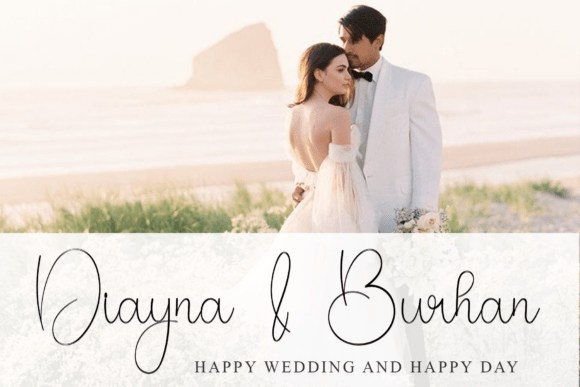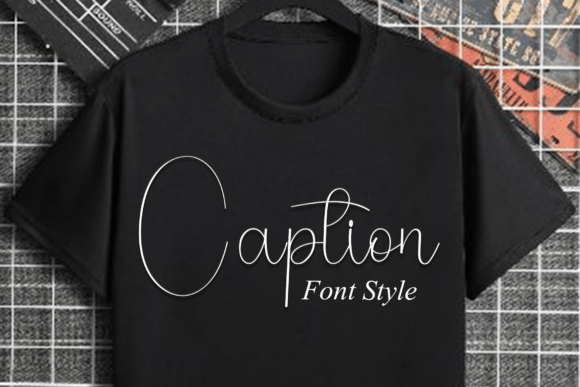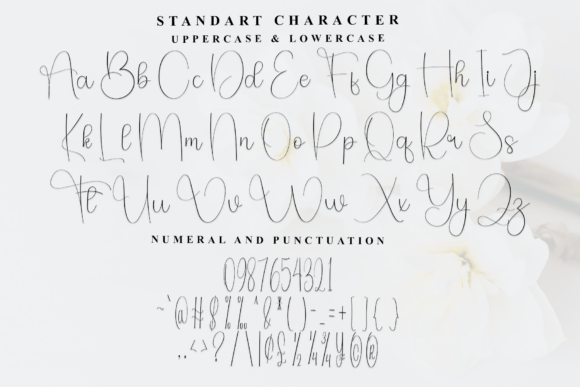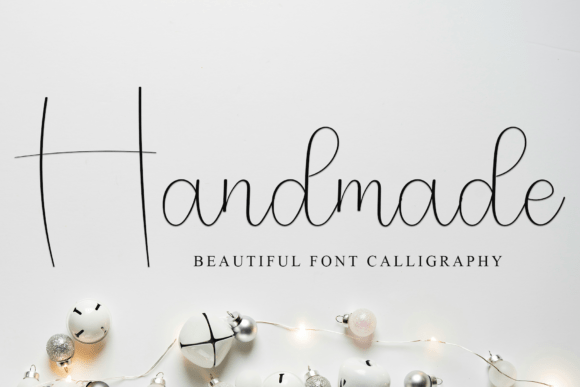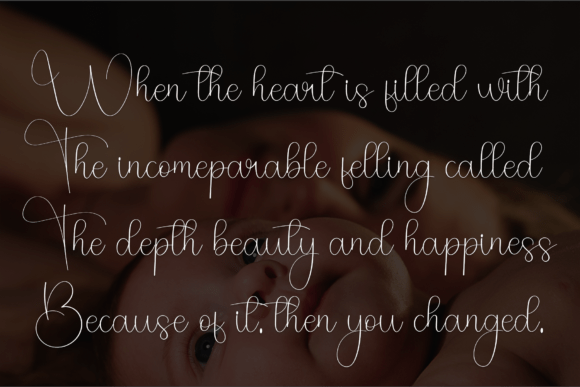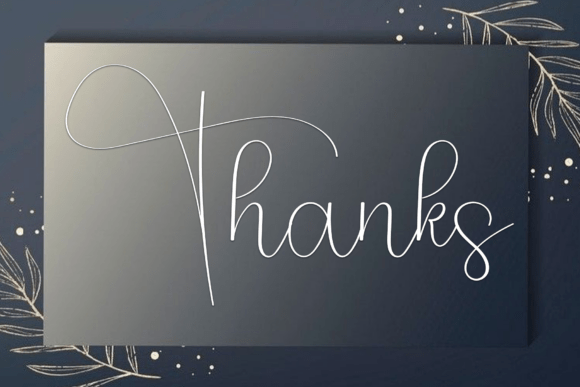
The Perfect Script: Unveiling the Elegance of Babykids Font
Have you ever been browsing through design inspiration boards and stumbled upon a beautiful handwritten font that makes you feel like your designs are missing that special something? That’s exactly what happened to me when I discovered Babykids Font. Its fluid, elegant strokes instantly captured my attention, and I knew I had to learn more.
Babykids Font is a stylish handwritten script designed to add a touch of sophistication and elegance to your designs. Perfect for branding, invitations, and stationery, it’s the perfect tool for designers who want to create a personal and refined look. With its smooth curves and natural flow, Babykids Font is a timeless choice that will elevate any design to the next level.
Babykids Font Key Features
- Font Family: Babykids Font is a unique, hand-drawn font designed for use in children’s media, advertising, and other creative applications.
- Unique Characteristics: The font features a playful, whimsical design with hand-drawn elements, making it perfect for creating engaging and child-friendly content.
Babykids Font Review
I recently had the chance to work with the Babykids Font, and I must say, it’s a mixed bag. Let’s start with what works well:
- ✨ Unique and playful design: The Babykids Font has a distinct, whimsical feel that’s perfect for children’s books, nursery decorations, or any project that needs a touch of innocence.
- ✨ Good legibility: Despite its cursive nature, the font is still easy to read, making it suitable for body text or headings.
- ✨ Customizable: The font comes in a range of weights and styles, allowing you to tailor it to your specific design needs.
- ⚠️ Limited language support: The Babykids Font may not be compatible with non-Latin scripts or languages, which could be a problem for global projects.
- ⚠️ Not ideal for formal or professional projects: The font’s playful design may not be suitable for corporate materials, government reports, or other formal documents.
- ⚠️ May require adjustments for small sizes: At very small font sizes, the Babykids Font can become difficult to read or even illegible.
Overall, I think the Babykids Font is a great choice for the right projects. While it may have some limitations, its unique design and good legibility make it a solid addition to any designer’s toolkit.
The Babykids Font is ideal for:
1. Children’s book covers and illustrations.
2. Baby product branding and packaging.
3. Whimsical and playful website designs.
4. Educational materials and learning resources.
Alternatives to Babykids Font
Great Vibes Font is a beautiful script font perfect for creating a playful and elegant look. It’s ideal for designing invitations, greeting cards, and any other project that requires a touch of sophistication. Great Vibes Font is more polished and refined compared to Babykids Font, which makes it suitable for a wider range of applications.
Alex Brush Font is a elegant script font that’s perfect for creating a high-end and luxurious look. It’s ideal for designing logos, branding materials, and any other project that requires a touch of sophistication. Alex Brush Font is more formal and refined compared to Babykids Font, which makes it suitable for corporate and high-end projects.